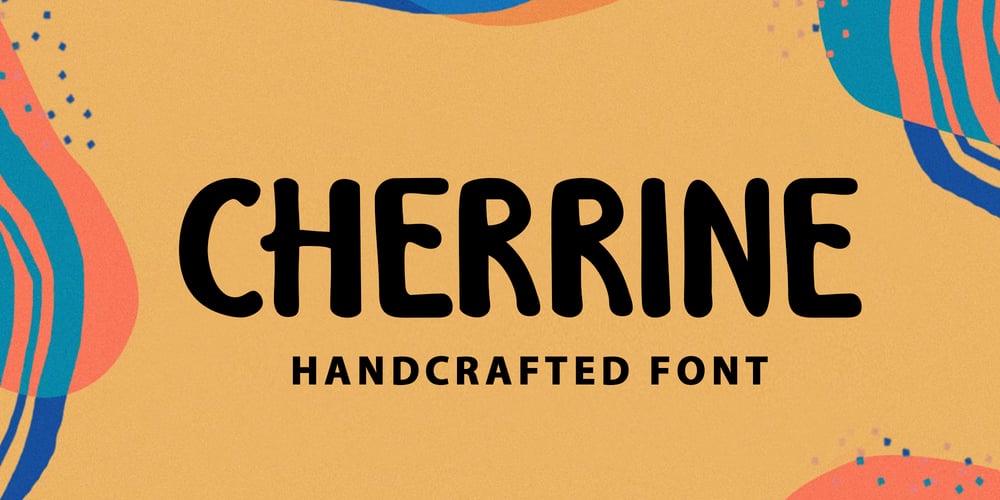
Cherrine
Cherrine font
Cherrine Font Family was designed by Riski Firmana and published by Solidtype. Cherrine contains 1 styles and family package options. Cherrine is a handcrafted font. decorative, fun and friendly. Can used for various purposes. such as the title, logo, quotes, invitations, signage, posters, etc. International support for most Western Languages is included.